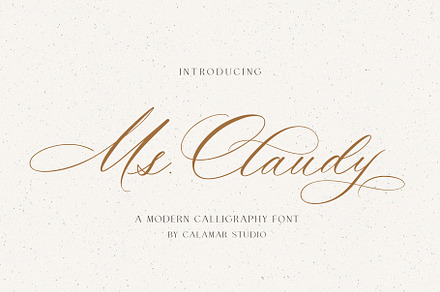
Ms Claudy | Wedding Calligraphy Font
A wedding calligraphy face with delicate stroke weights and extended flourishes designed for names and short headline settings.
Fine calligraphy needs size to survive – set small the hairlines disappear – so this is built for display rather than text use.
- Extended flourish and swash set
Made for
- Wedding invitations and place cards
- Event signage and menus
- Luxury packaging
- Monogram and logo work